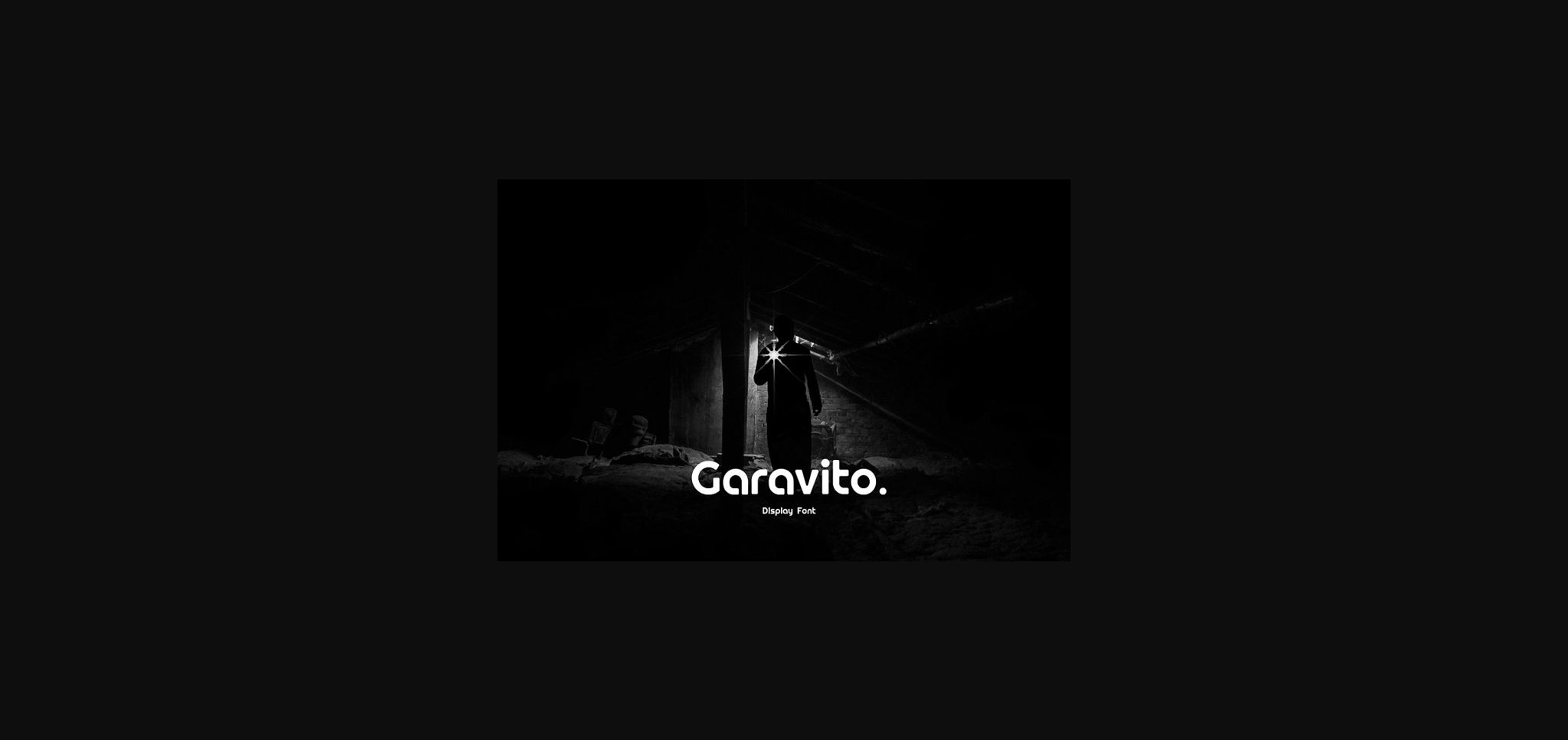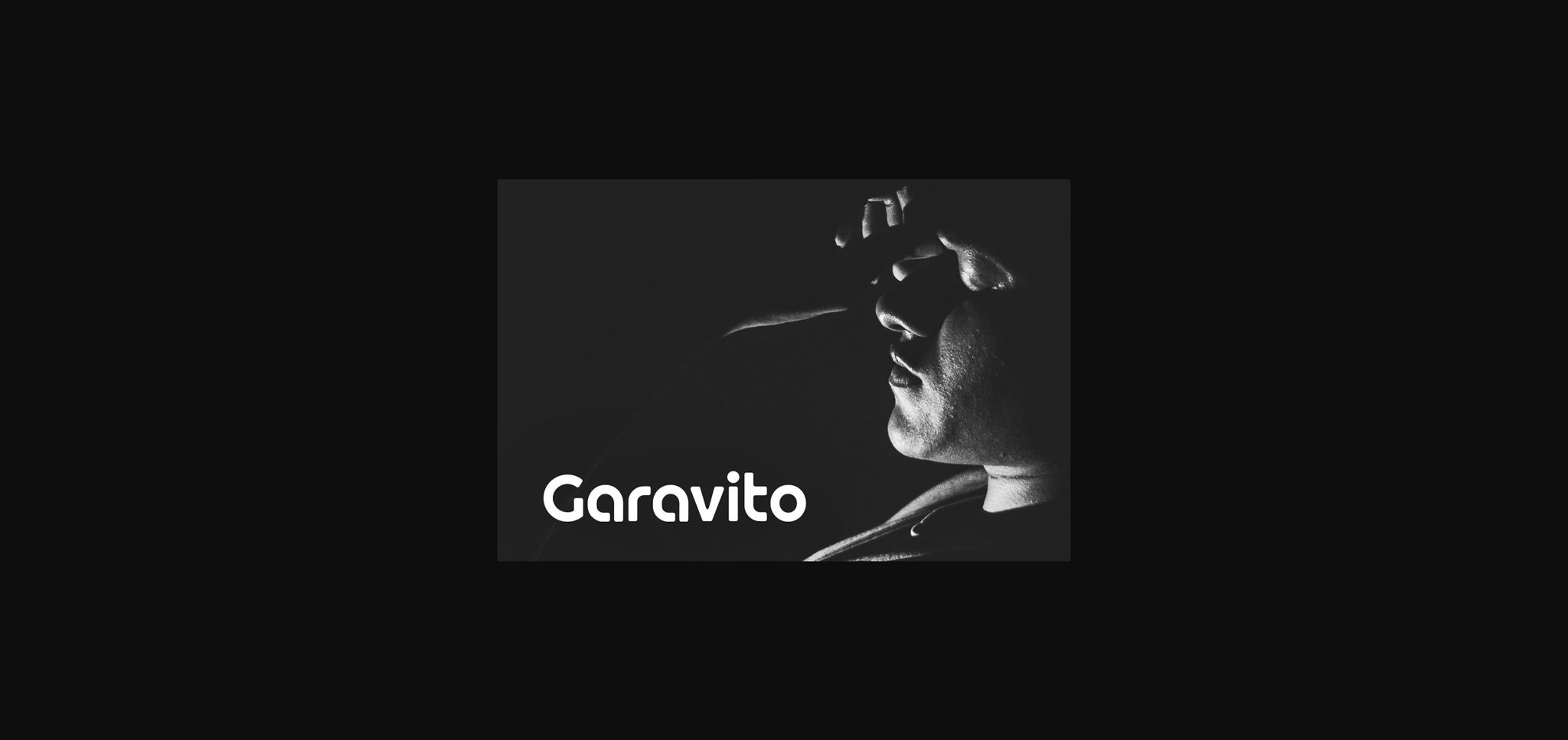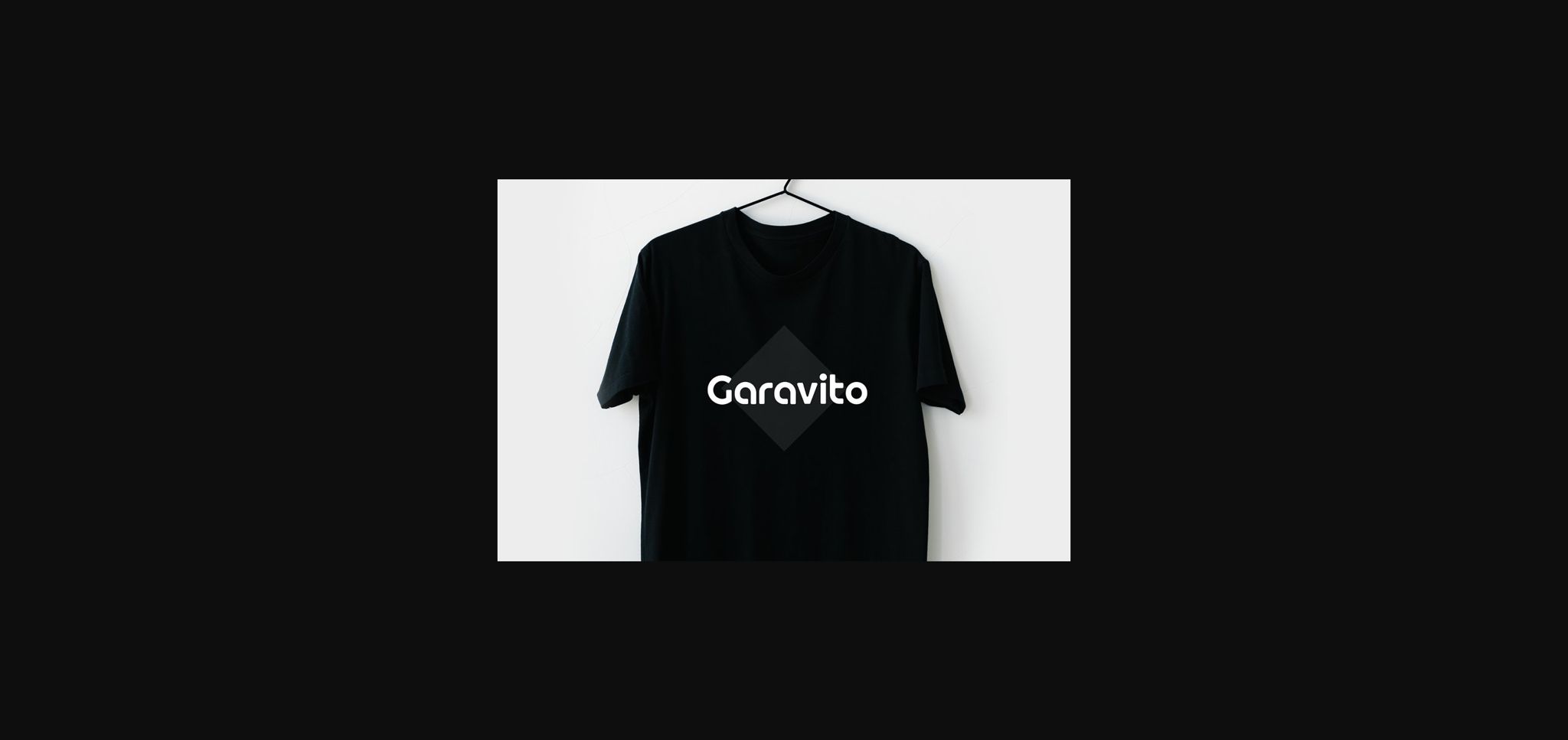
About Garavito Font
Garavito is a simple and minimal sans serif font. It can easily be matched to an incredibly large set of projects, so add it to your creative ideas and notice how it makes them stand out!